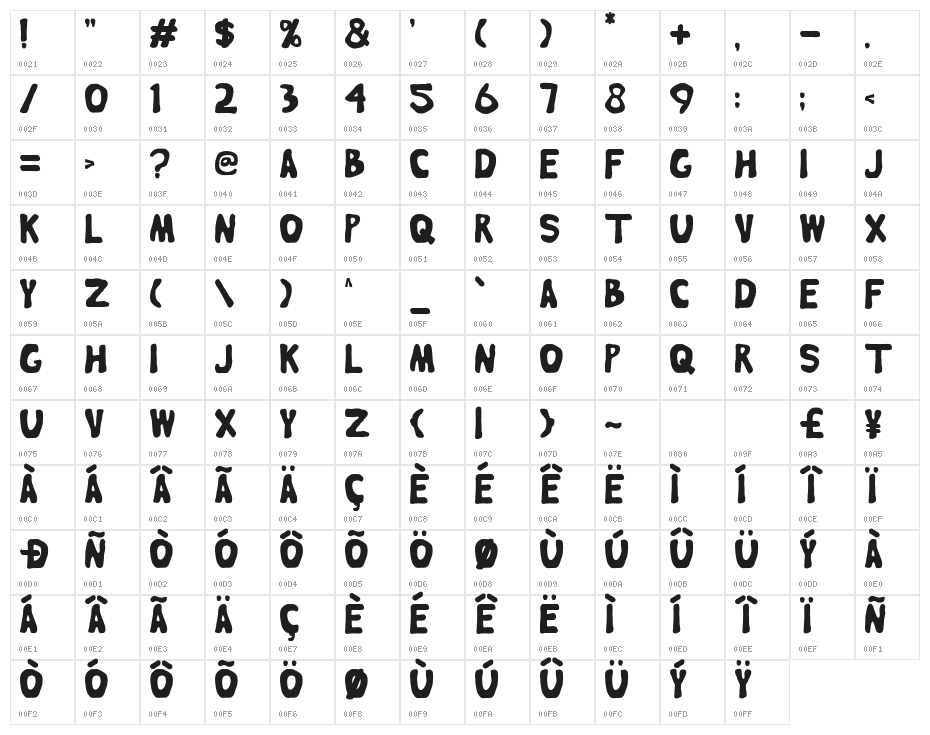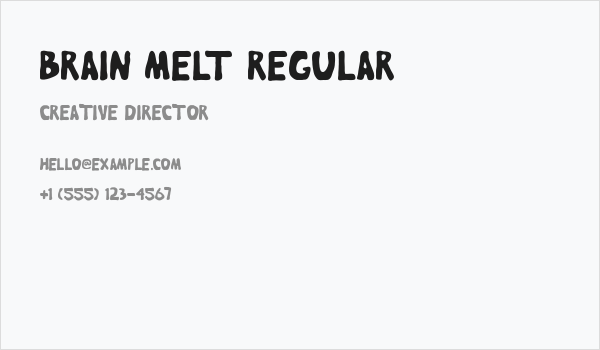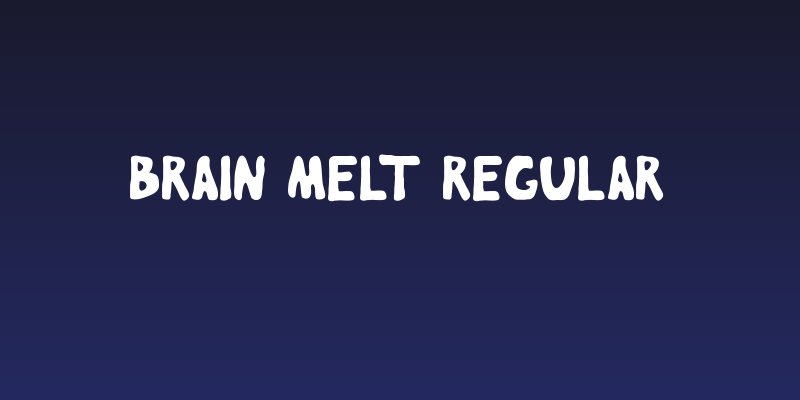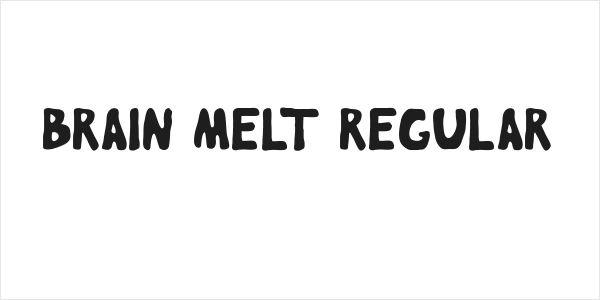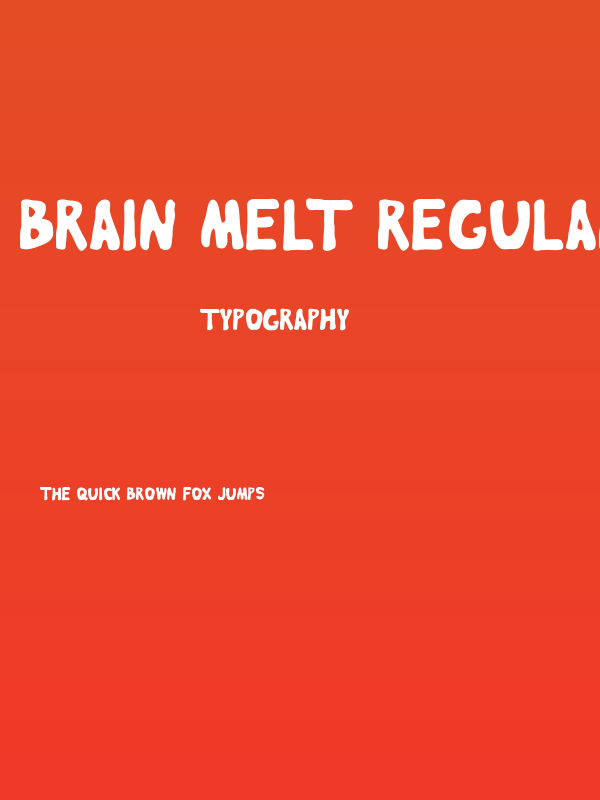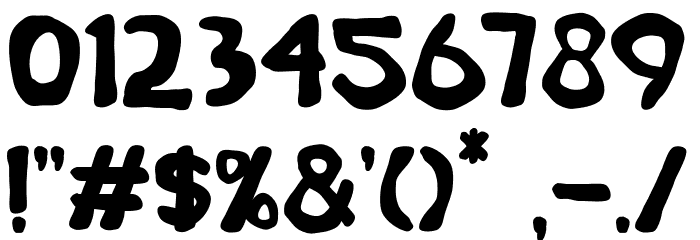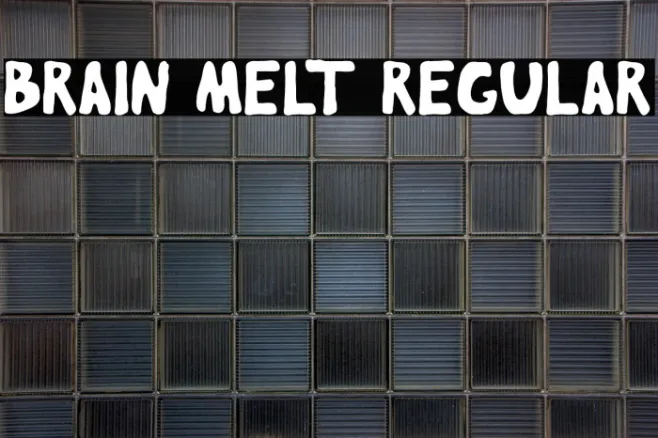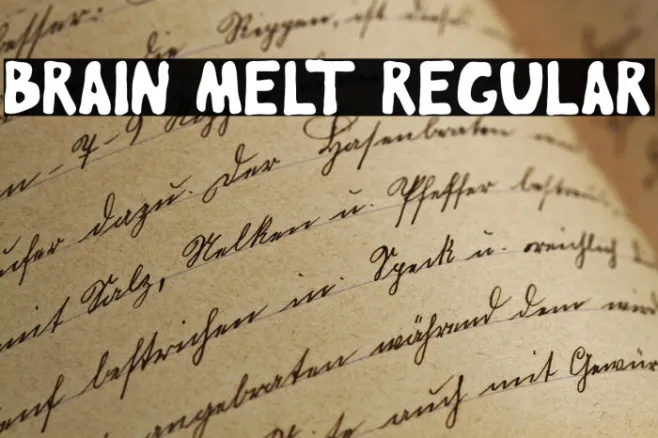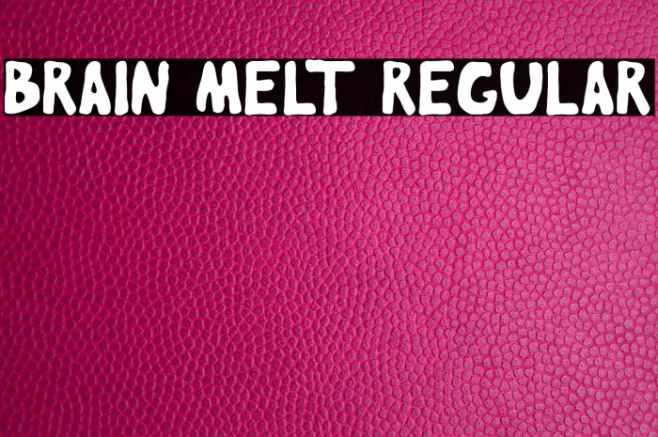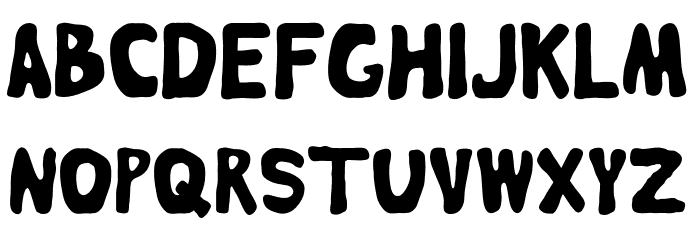
Brain Melt regular Font
Brain Melt regular Description
This font features a bold, playful style with a hand-drawn appearance. The characters are rounded and slightly irregular, giving them a whimsical and informal look. The strokes are thick and consistent, contributing to a strong visual presence. The overall design is reminiscent of melted or dripping shapes, adding a unique and creative flair. This font is ideal for projects that require a fun and engaging aesthetic, such as children's books, posters, or creative branding. Its distinctive style ensures that it stands out in any design context.
| Overall Style | Playful, Creative, Whimsical |
| Proposed Projects | Ideal for children's books, posters, creative branding, and playful designs. |